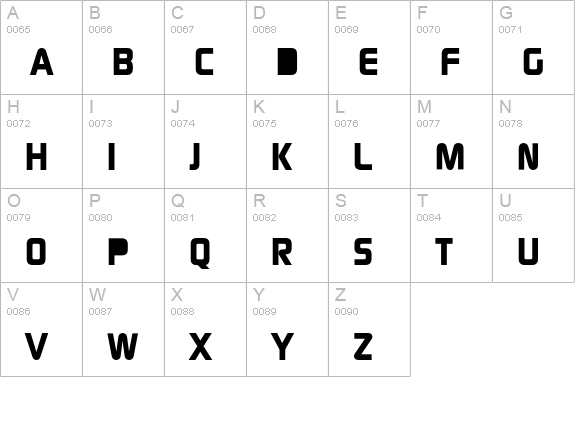
DigitalEF-Bold is a strong, high-contrast variant in the DigitalEF typeface family \xE2\x80\x94 well suited to headlines, attention-grabbing titles, and strong calls-to-action.
DigitalEF-Bold is a stylish and modern font that exudes confidence and sophistication. With its bold and contemporary design, this typeface is perfect for making a strong statement in any project. The clean lines and sharp edges give DigitalEF-Bold a sleek and professional look that is sure to catch the eye. What sets DigitalEF-Bold apart is that it is not only visually striking, but it is also available for free download at FontsMarket.com. This means that you can easily add this stunning font to your collection without having to spend a dime. Whether you're working on a branding project, a website design, or any other creative endeavor, DigitalEF-Bold is a versatile font that will elevate your work to the next level. So why settle for ordinary when you can have extraordinary? Download DigitalEF-Bold for free today and see the difference it can make in your designs.